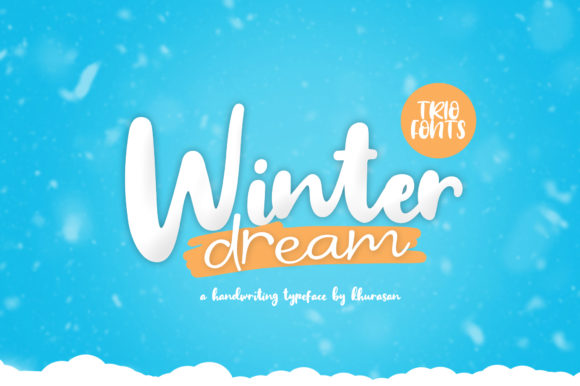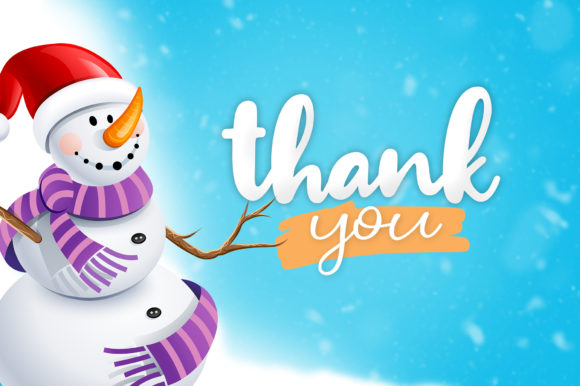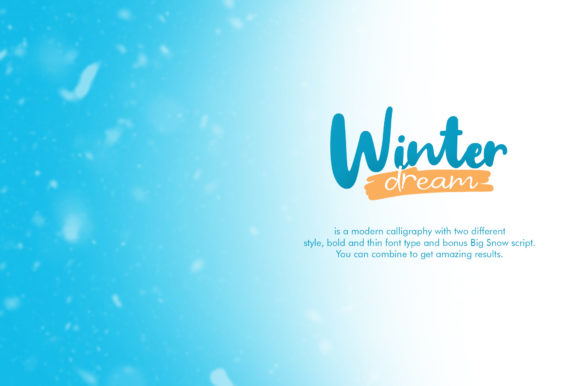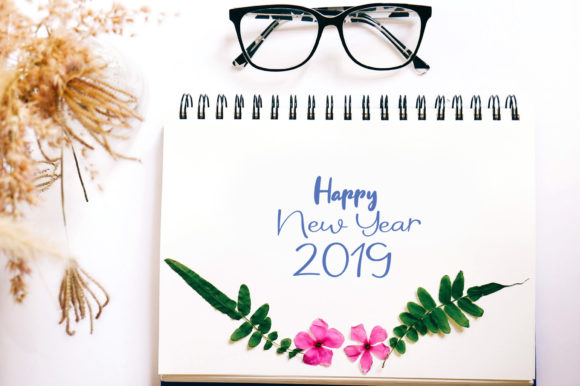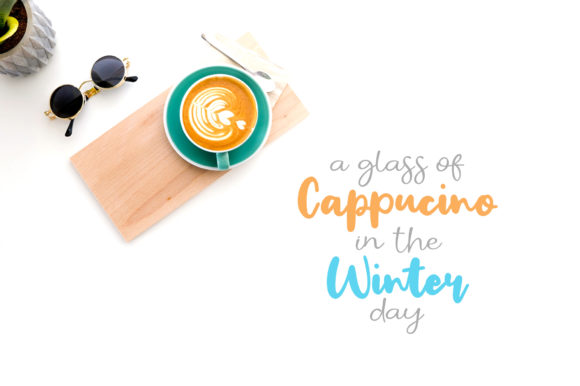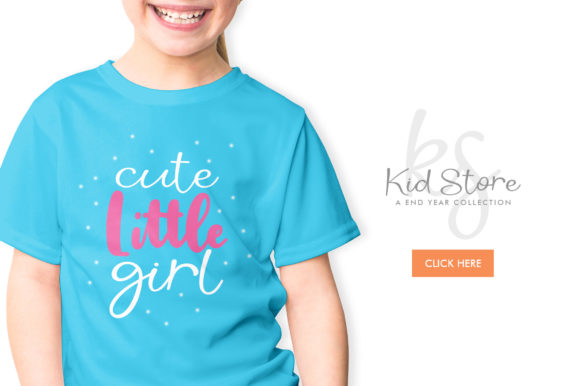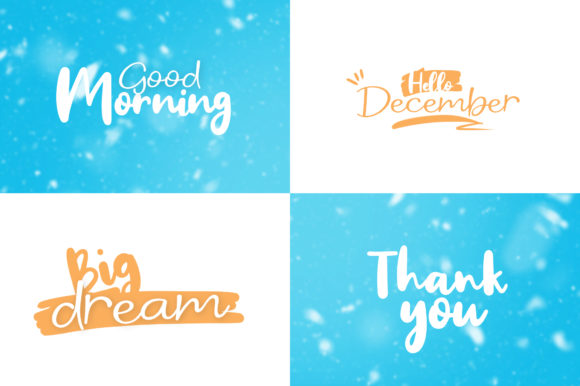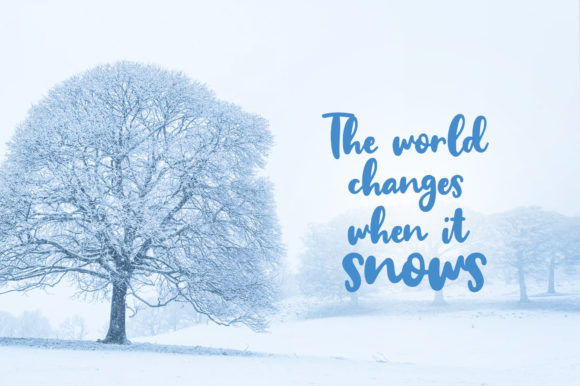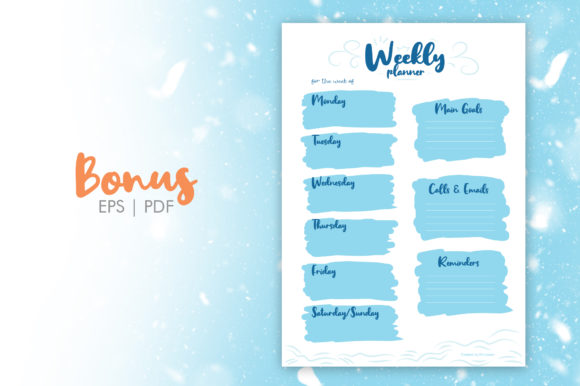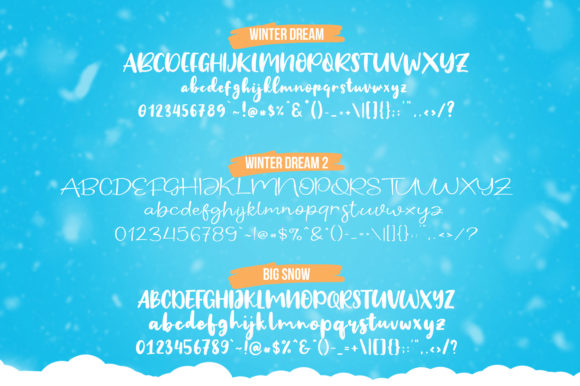
Winter Dream Trio Font
About Winter Dream Trio Font
The Winter Dream is a fun font trio. It comes in three styles which makes it perfect for creating several unique designs! Combine the three included styles to get some amazing results!